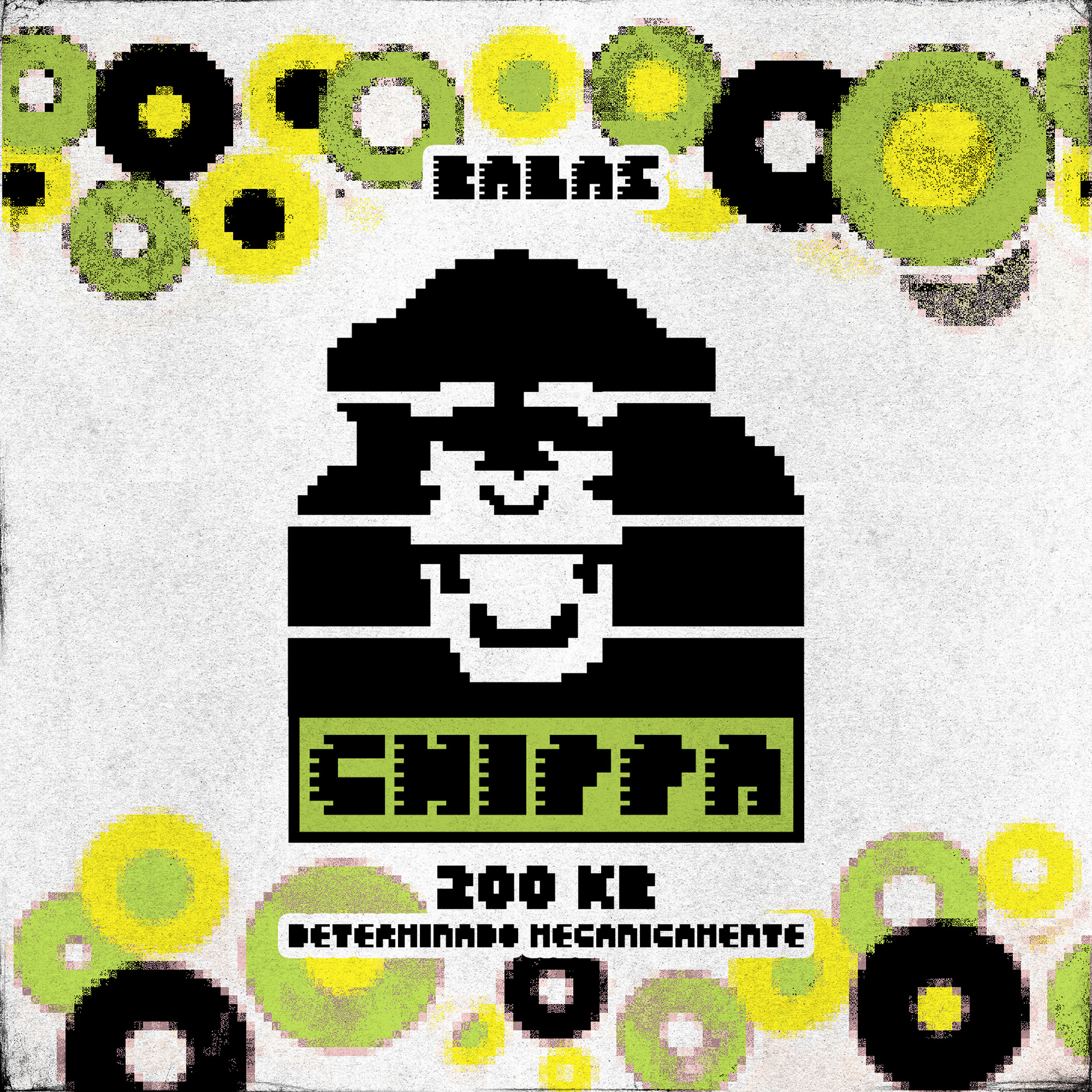
One of my first typographic projects grew as part of Chippanze's visual identity - 14 years of consolidated international activity as the first and only Brazilian chip music collective.